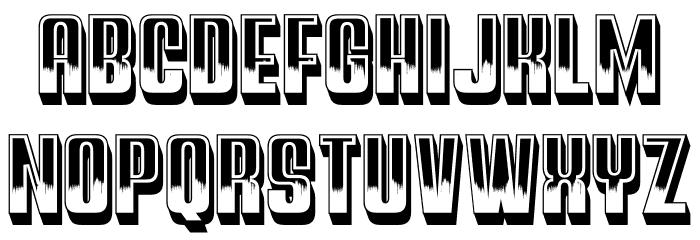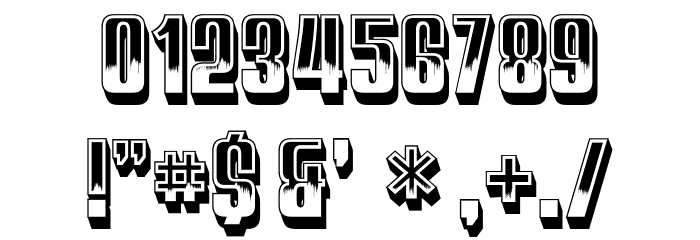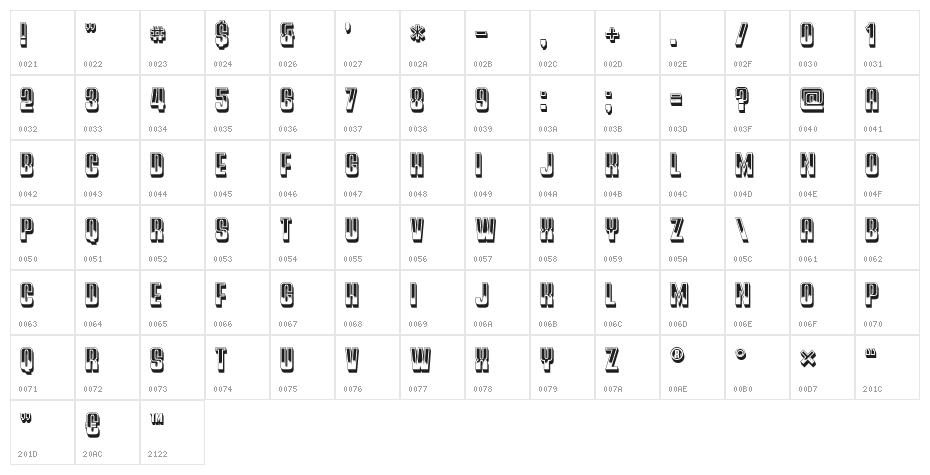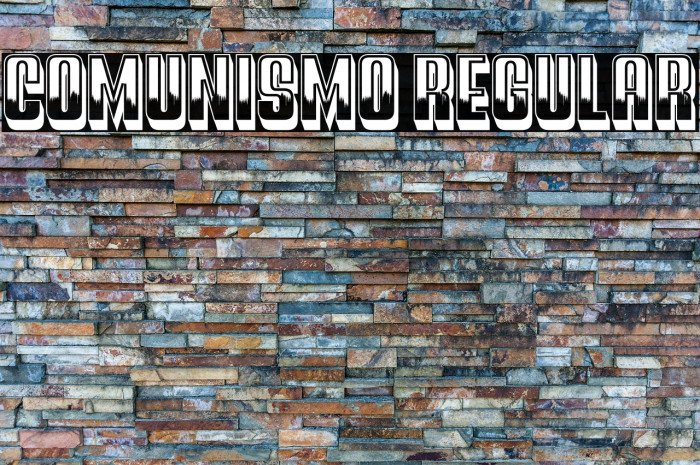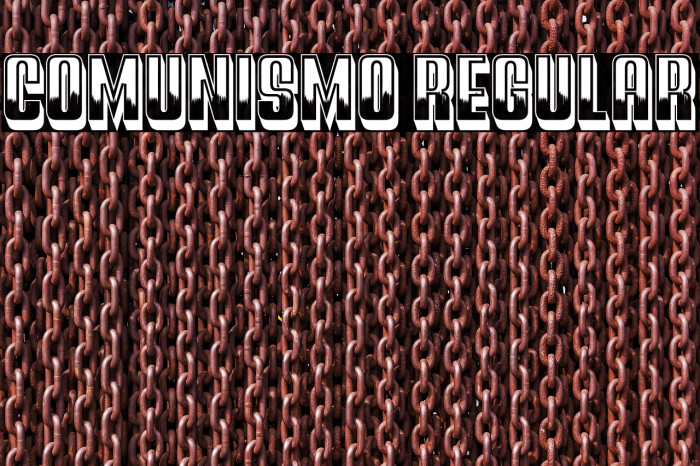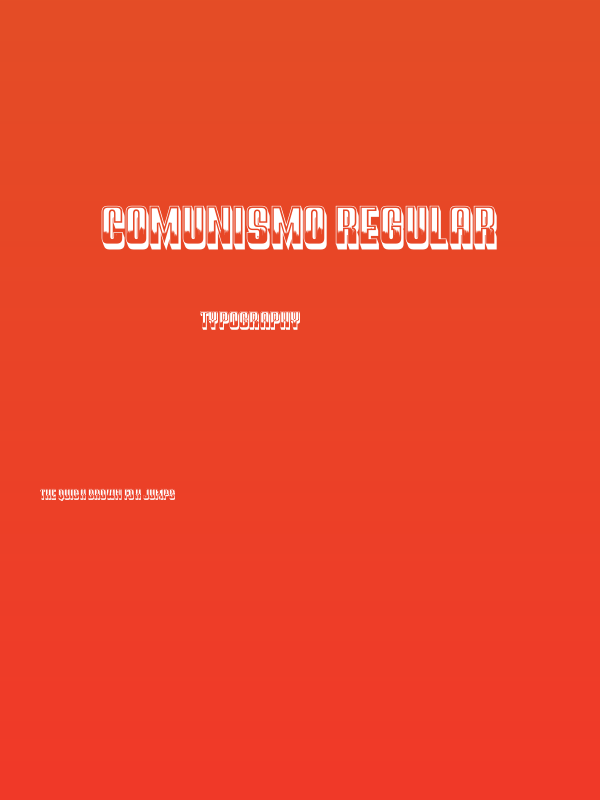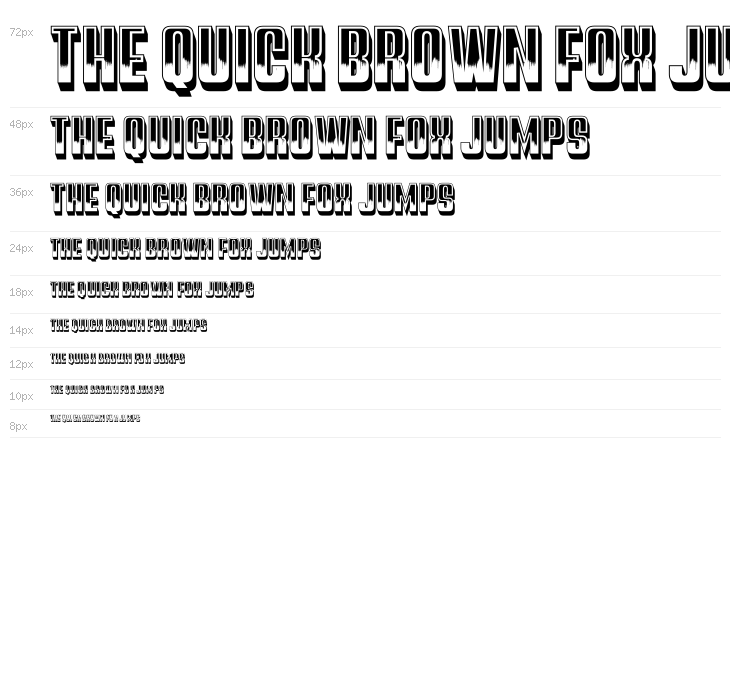
Comunismo Regular Font
This font features a bold, impactful design with a strong 3D effect, characterized by a shadow that gives depth to each character. The uppercase letters are prominent, with a distinct, rugged texture that adds a dynamic and energetic feel. The numbers and special characters maintain this bold style, ensuring consistency across all elements. The font's unique style makes it stand out, suitable for eye-catching designs. Its boldness and texture suggest a sense of strength and movement, making it ideal for projects that require a strong visual impact.
A bold, textured font with a 3D shadow effect, perfect for impactful designs.
- Proposed Projects: Ideal for posters, headlines, logos, and any design needing a strong visual impact.